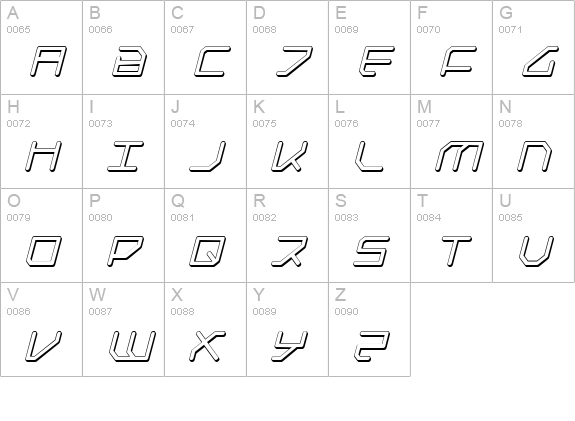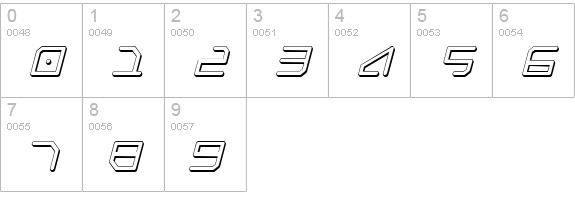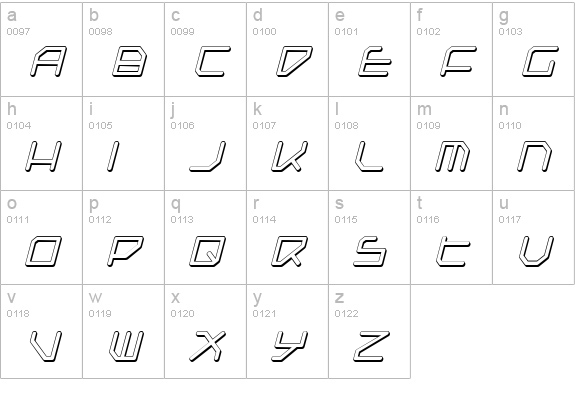
Federapolis Shadow Italic is a distinctive, italic variant in the Federapolis typeface family \xE2\x80\x94 well suited to design and typography projects.
Federapolis Shadow Italic font exudes an air of mystery and sophistication with its sleek and stylish design. The italicized shadow effect adds a touch of drama and elegance to any project, making it perfect for adding a bold statement to your designs. This font is versatile and can be used for various purposes such as logos, headlines, posters, and more. Best of all, Federapolis Shadow Italic font is completely free to download at FontsMarket.com. Don't miss out on the opportunity to enhance your designs with this stunning font that is sure to captivate your audience. Download it now and elevate your projects to the next level with Federapolis Shadow Italic font!